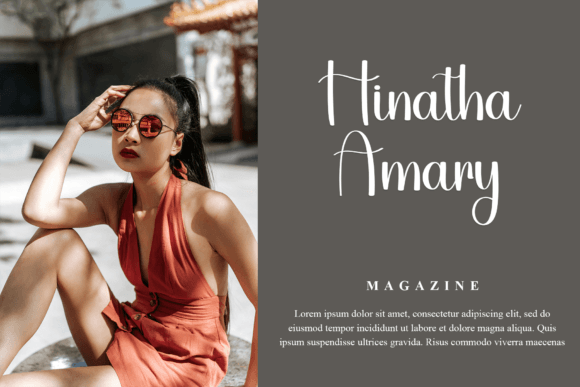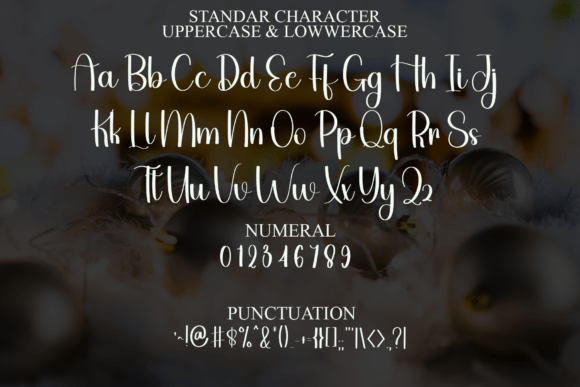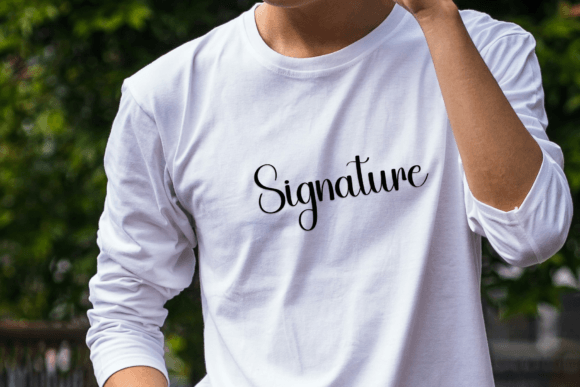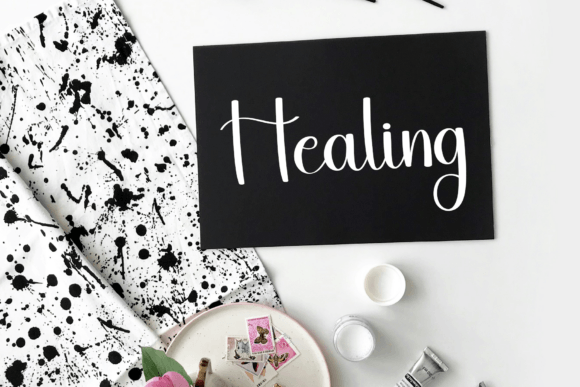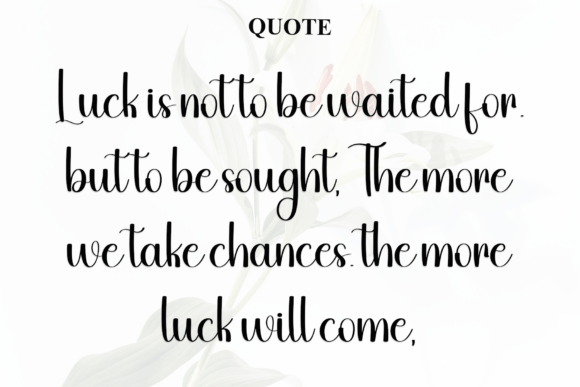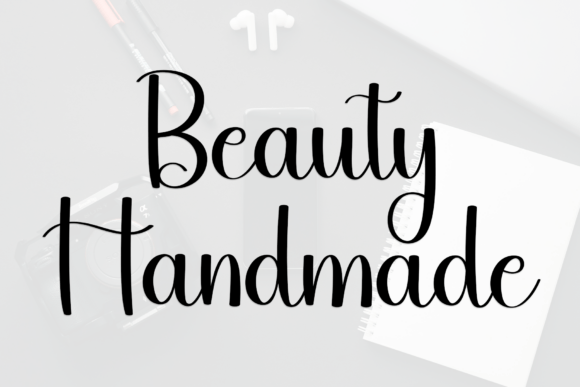
Introducing Handwriting Dancing Font: Adding a Touch of Whimsy to Your Designs
Are you tired of using the same old fonts in your designs? Look no further than the Handwriting Dancing Font, a casual and creative font that exudes warmth and friendliness. This charming font is perfect for personal projects, invitations, and social media graphics, adding a fun and unique touch to any design.
The Characteristics of Handwriting Dancing Font
The Handwriting Dancing Font is characterized by its round, playful strokes that create a relaxed and approachable feel. The font’s hand-drawn aesthetic gives it a charming and whimsical touch, making it perfect for designs that require a personal and friendly tone. The font’s casual nature makes it ideal for use in a variety of design projects, from DIY crafts to social media graphics.
Uses of Handwriting Dancing Font
The Handwriting Dancing Font is versatile and can be used in a variety of design projects, including:
- Personal Projects: Add a touch of personality to your personal projects, such as journals, planners, and scrapbooking.
- Invitations: Create unique and playful invitations for parties, weddings, and other special events.
- Social Media Graphics: Add a fun and creative touch to your social media graphics, such as quotes, posters, and ads.
- Crafting: Use the font to create handmade cards, gift tags, and other craft projects.
Benefits of Using Handwriting Dancing Font
Using the Handwriting Dancing Font in your designs offers several benefits, including:
- Uniqueness: The font’s hand-drawn aesthetic makes it stand out from more traditional fonts, adding a unique touch to your designs.
- Friendliness: The font’s playful and approachable nature makes it perfect for designs that require a friendly and approachable tone.
- Versatility: The font can be used in a variety of design projects, from personal projects to commercial designs.
Tips for Using Handwriting Dancing Font
Here are some tips for using the Handwriting Dancing Font in your designs:
- Use it sparingly: While the font is playful and fun, it can be overwhelming if used excessively. Use it sparingly to add a touch of whimsy to your designs.
- Pair it with other fonts: Pair the Handwriting Dancing Font with other fonts to create a unique and visually appealing design.
- Experiment with colors: The font looks great in a variety of colors, so experiment with different colors to find the one that works best for your design.
The Handwriting Dancing Font is a versatile and charming font that adds a touch of whimsy to any design. Its playful and approachable nature makes it perfect for personal projects, invitations, and social media graphics. With its unique hand-drawn aesthetic and friendly tone, this font is sure to become a favorite among designers and crafters.
Get Creative with Handwriting Dancing Font